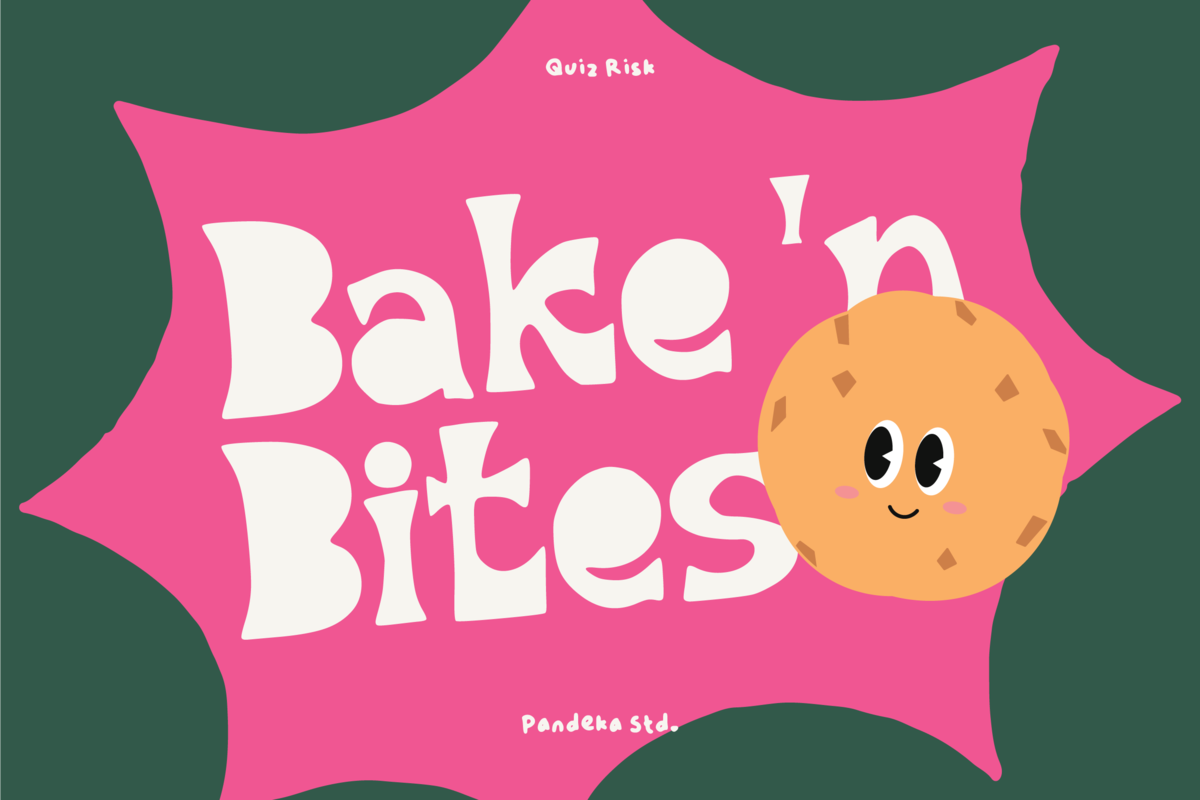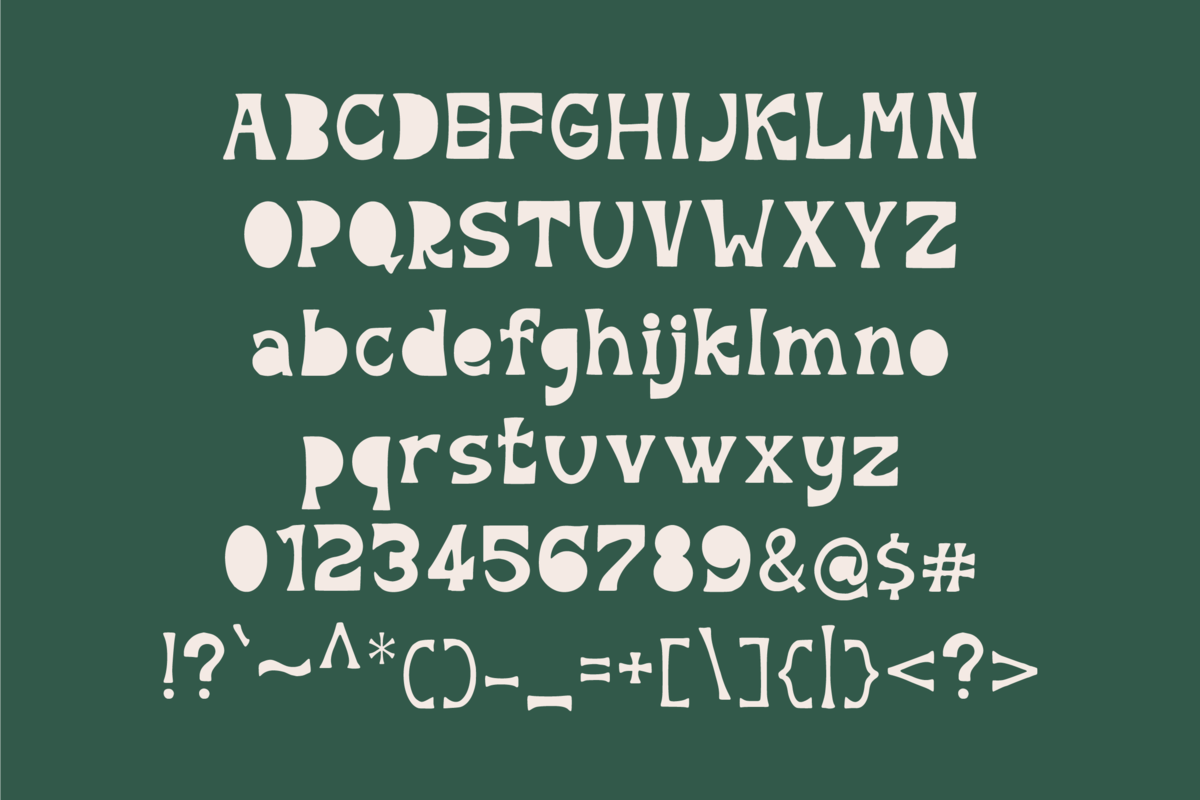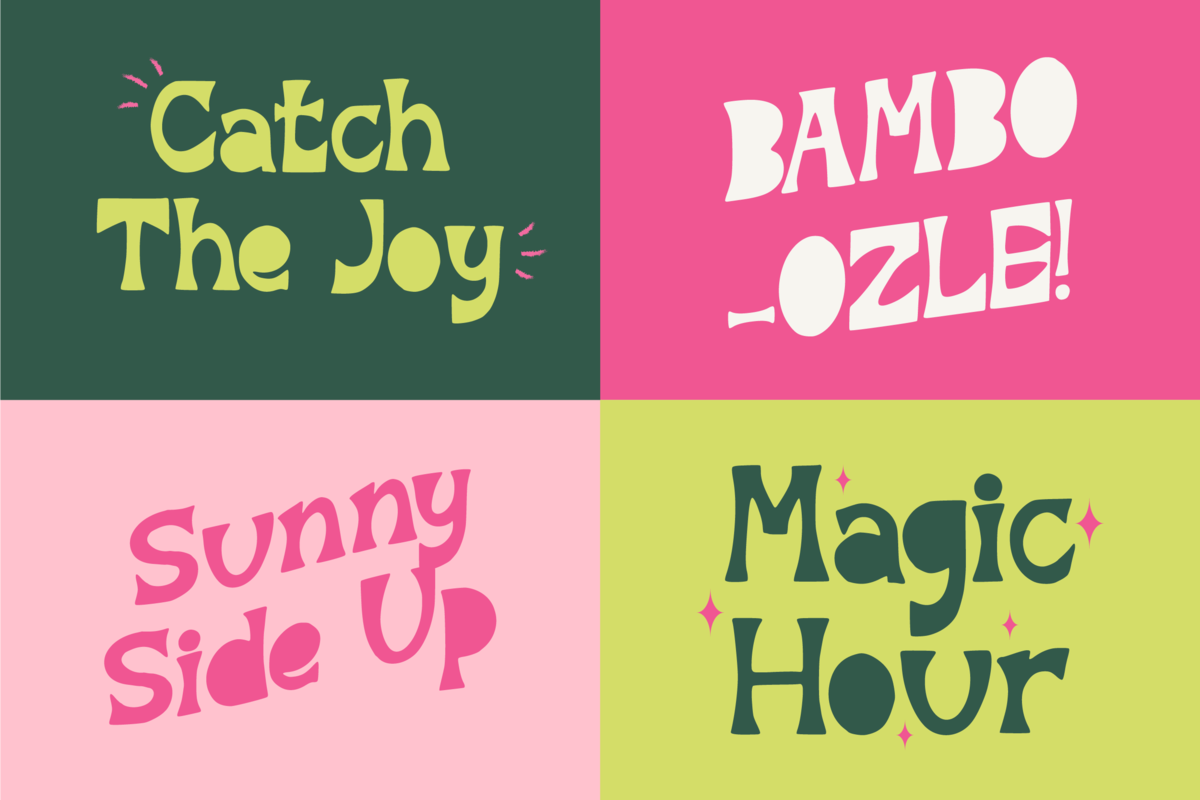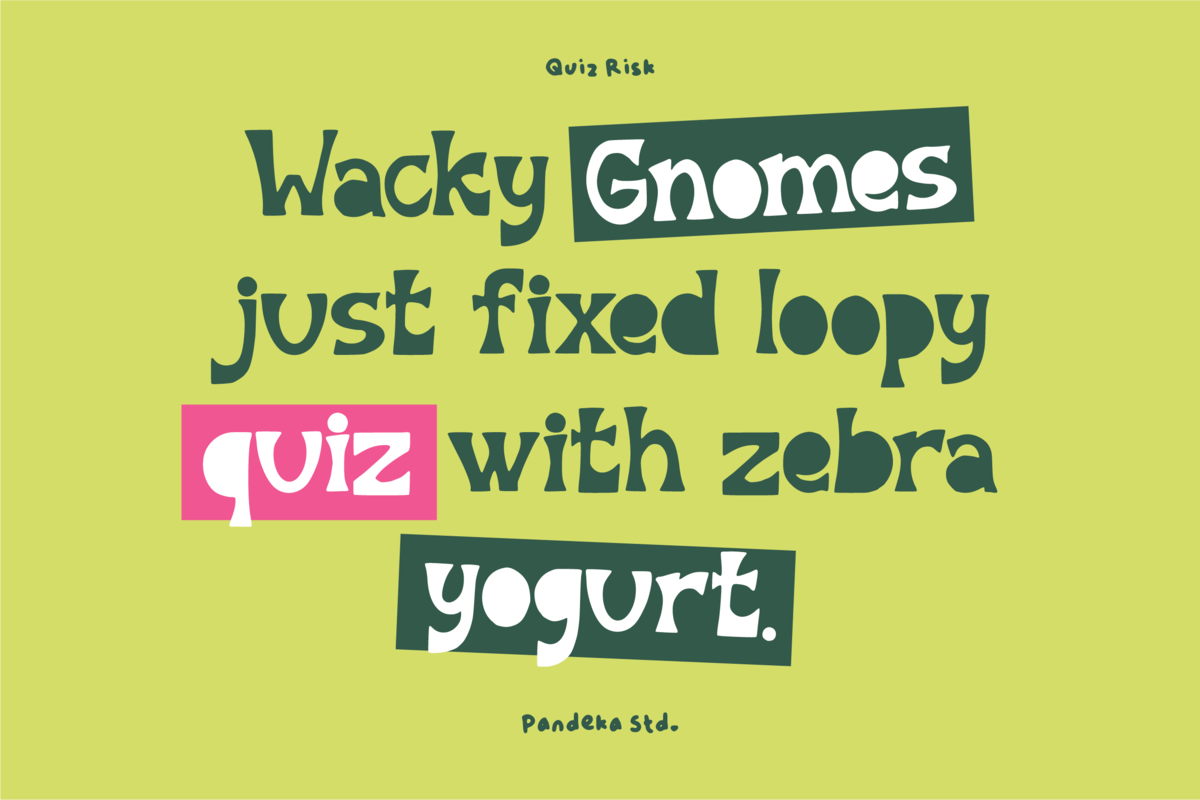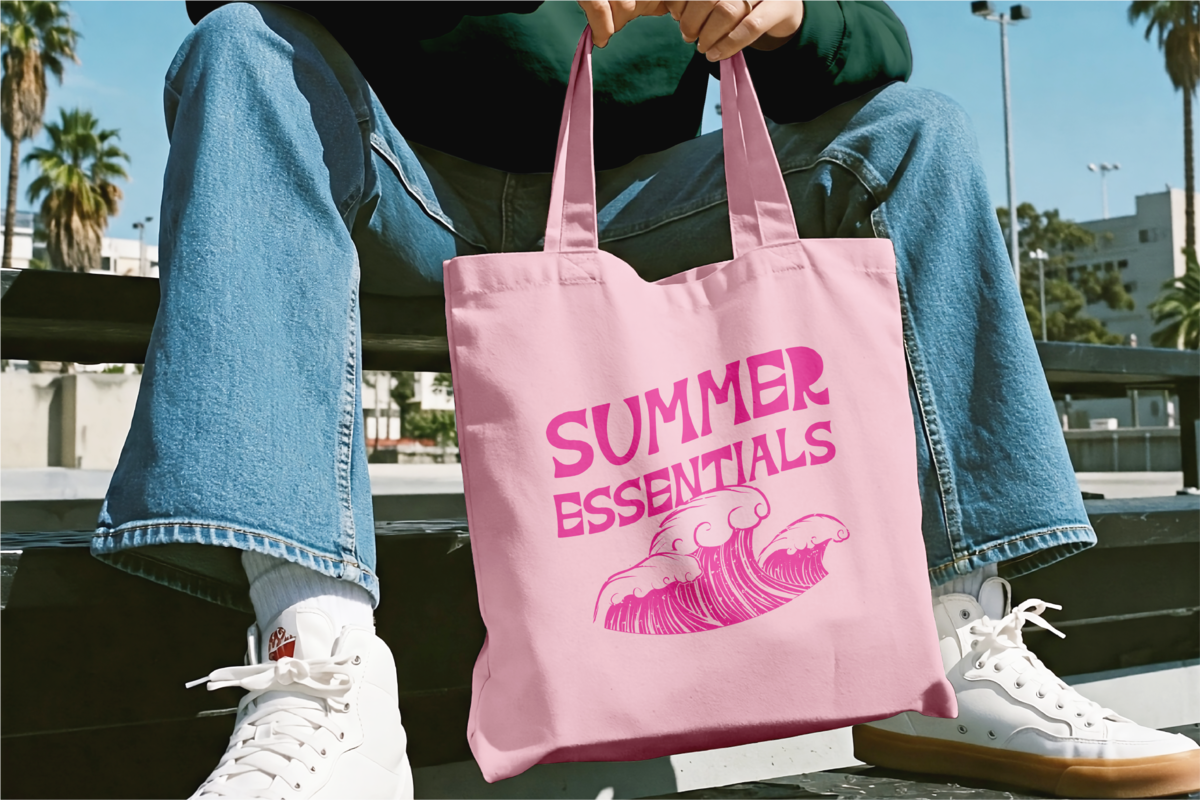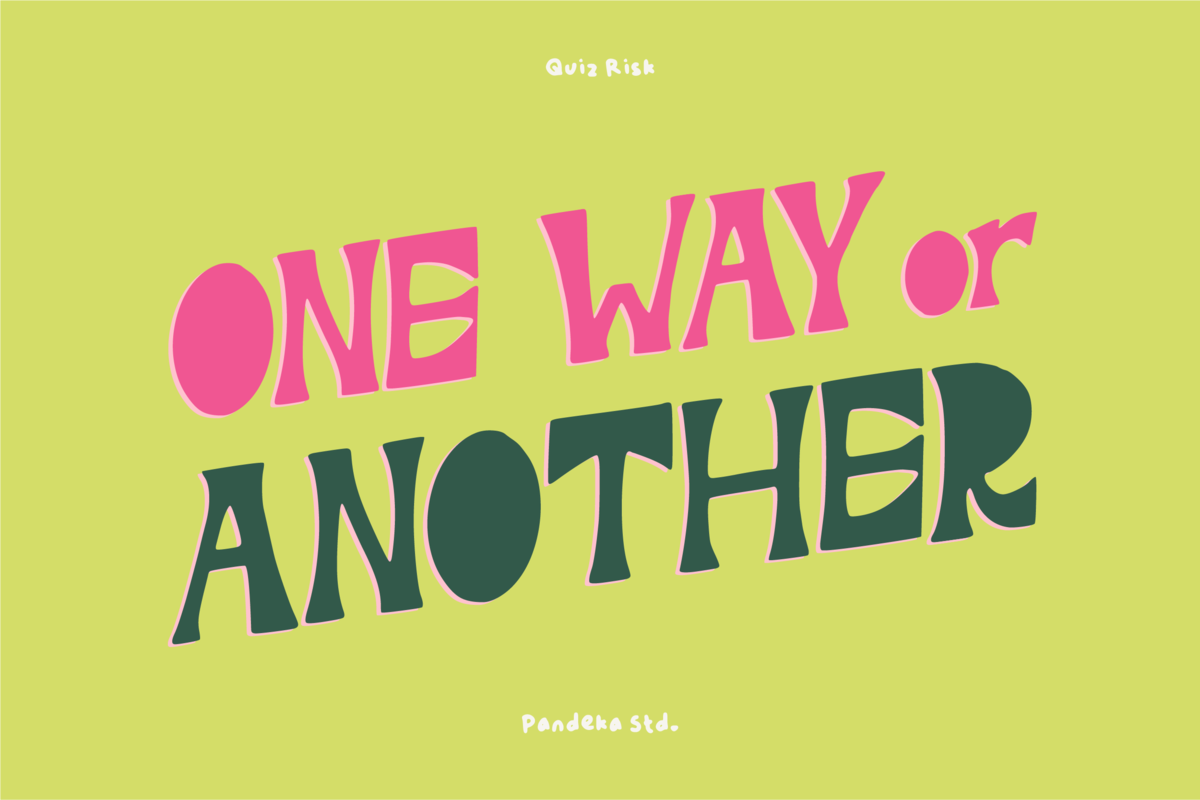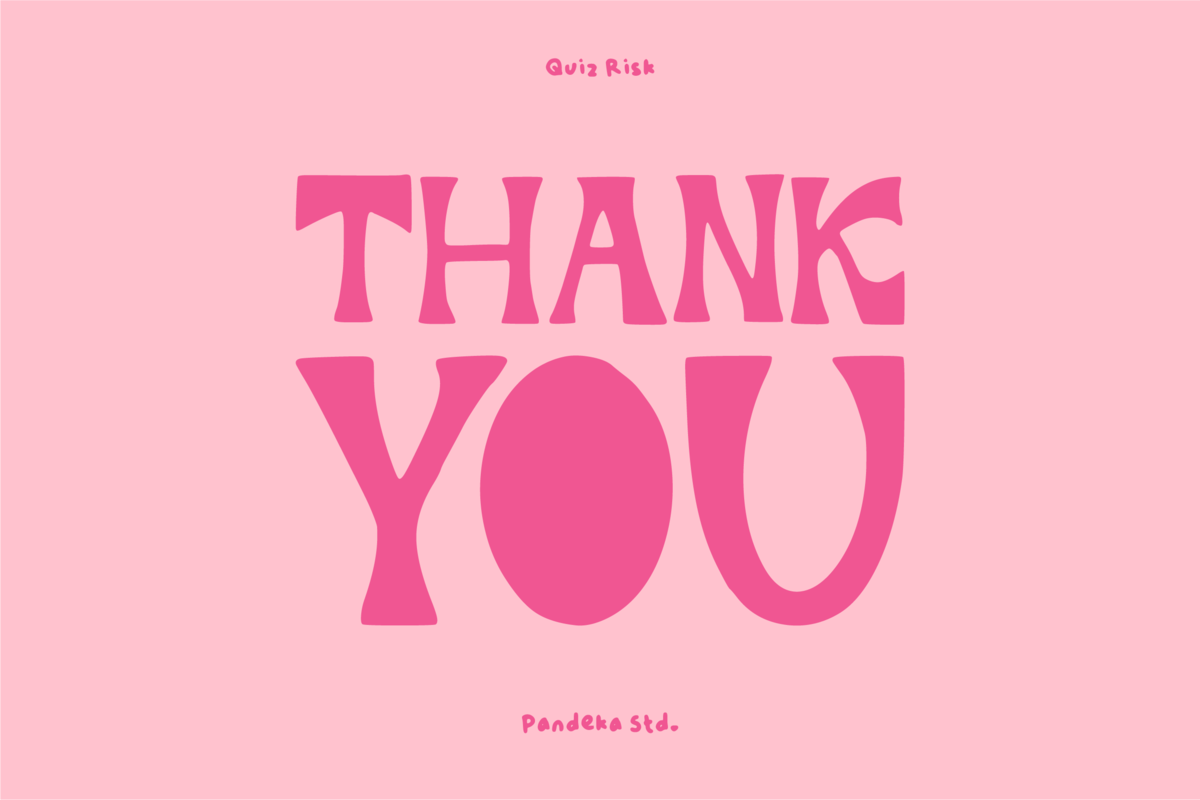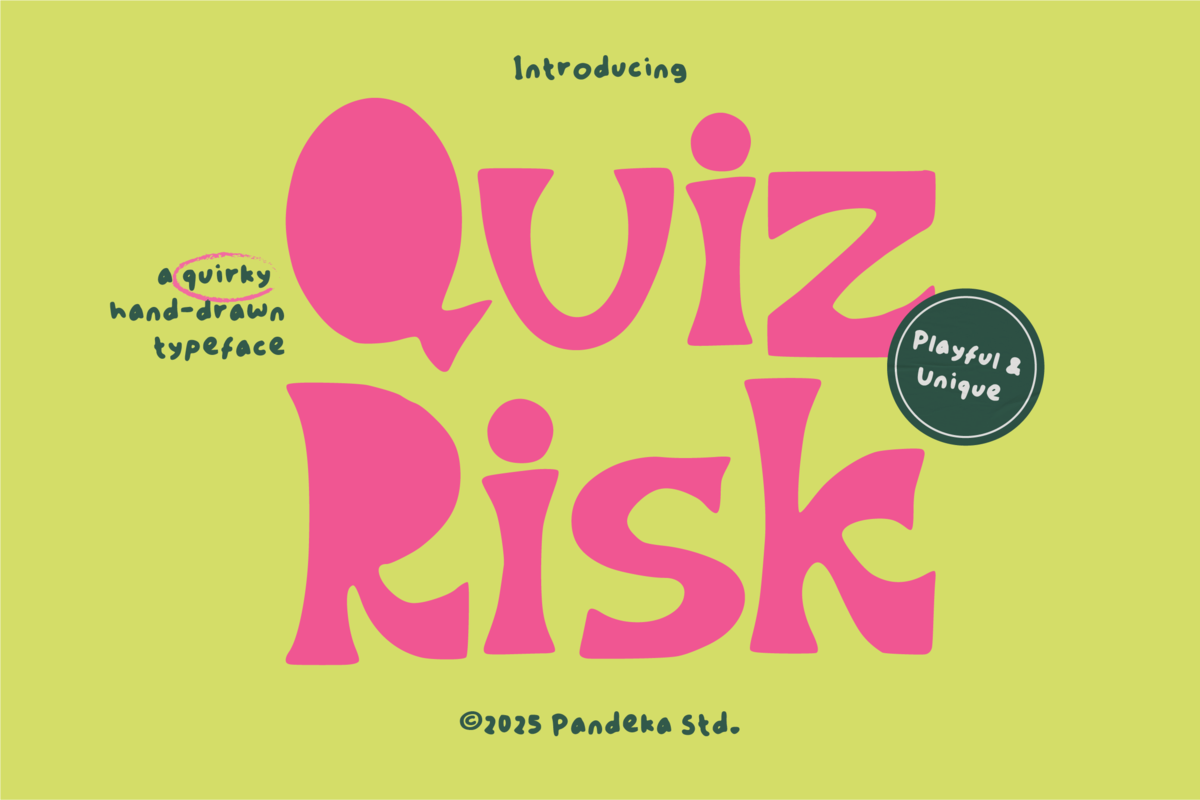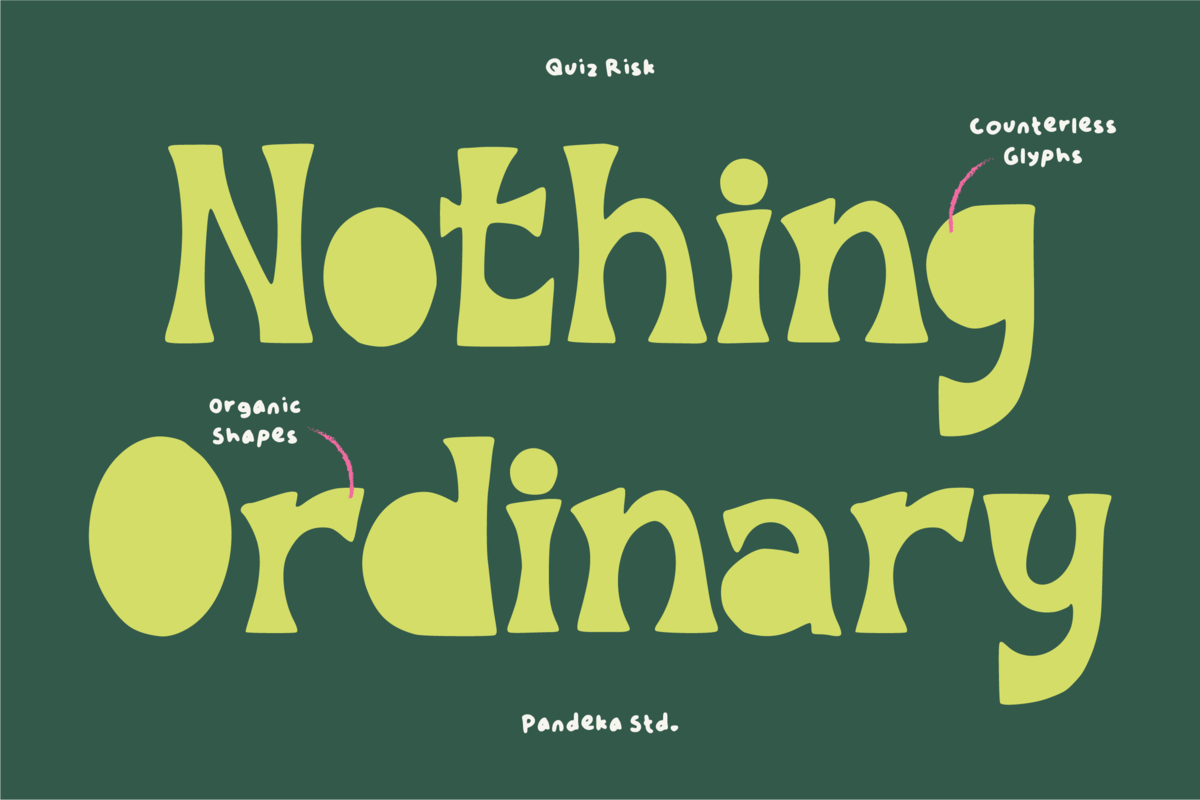
Quiz Risk - Handmade Quirky Font
Quiz Risk is a handmade quirky display font that bursts with fun, energy, and character. Each letterform is crafted with an imperfect yet charming flow that gives your design a bold, expressive, and playful personality.
This font blends retro and modern vibes — perfect for branding, posters, packaging, social media, album covers, and creative projects that need a punch of uniqueness and vibrancy.
With its chunky shapes and funky rhythm, Quiz Risk Regular is all about standing out and spreading joy through design. From groovy headlines to fun merchandise, it brings creativity and positivity to every project.
- Full Character Set: Uppercase, lowercase, numbers, symbols, and punctuation